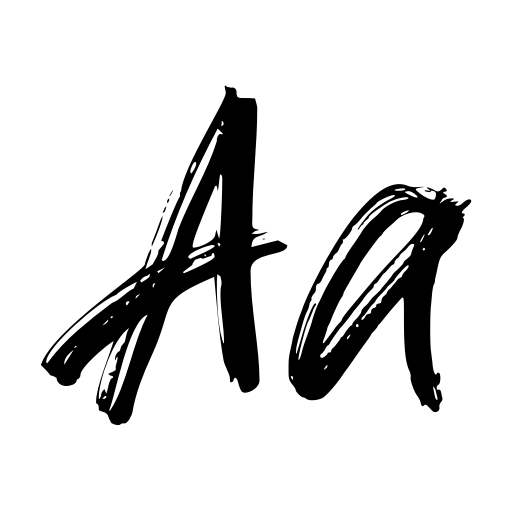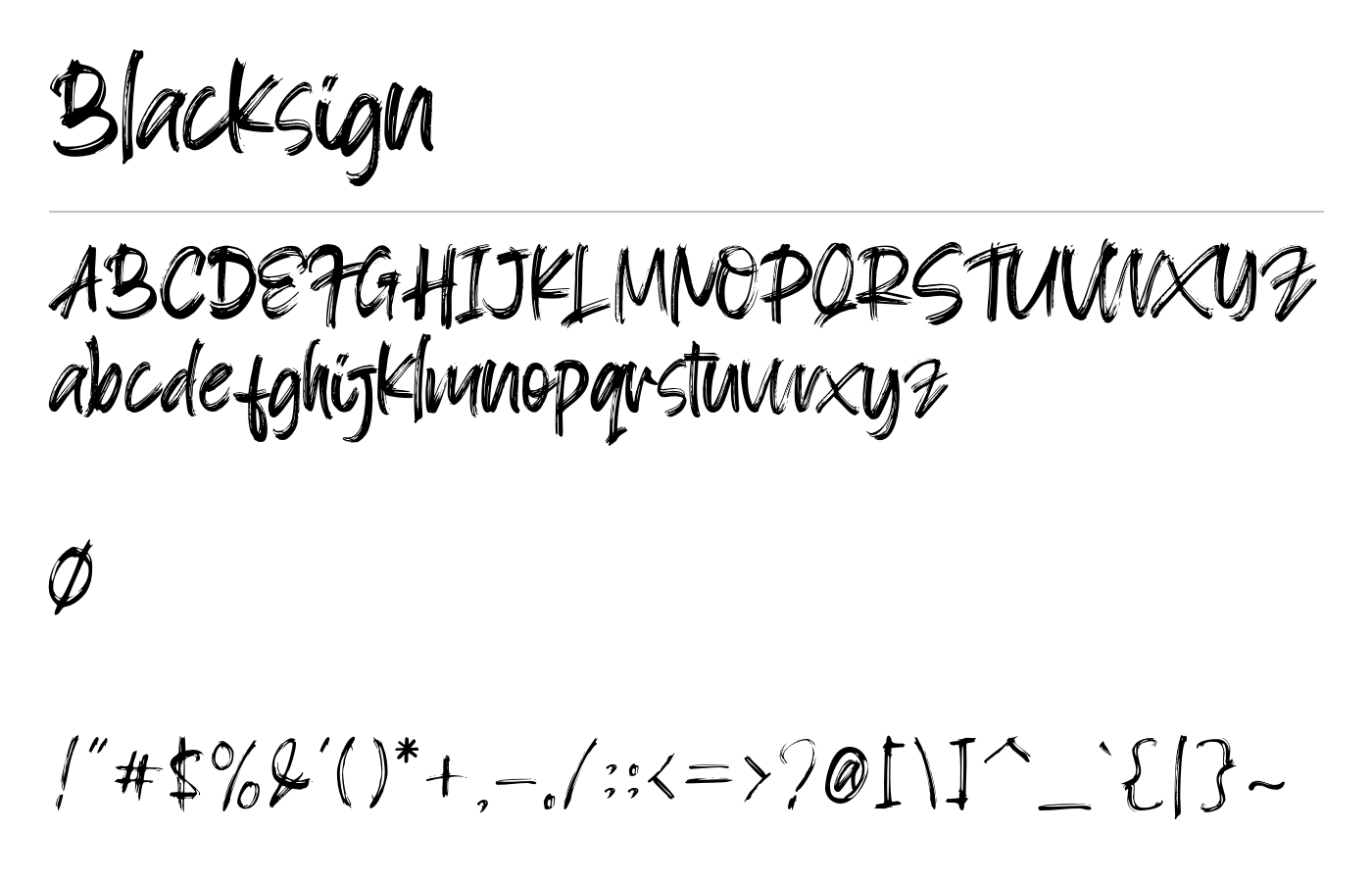
Blacksign is a bold, expressive brush script font that captures the feel of authentic hand-painted lettering with dynamic, textured strokes. Its casual and artistic style adds a lively, informal personality, making it ideal for creative projects, branding, posters, and social media where a vibrant, handcrafted touch is desired. This font works best in headlines and display uses where its energetic look can stand out and convey a sense of creativity and individuality.
Blacksign Font
About Blacksign Font
| Font family | Blacksign Font |
| Designer | Daddi Daryawan |